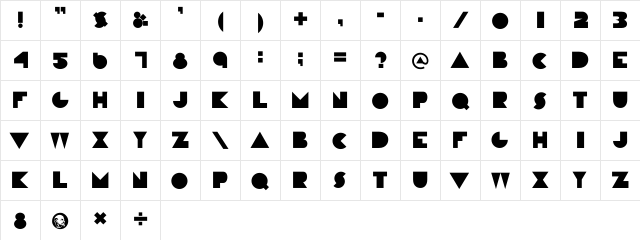
P22Constructivist Regular
Design Context for P22Constructivist Typeface
P22Constructivist is a composed and adaptable typeface that performs quietly and consistently across a wide range of design contexts.